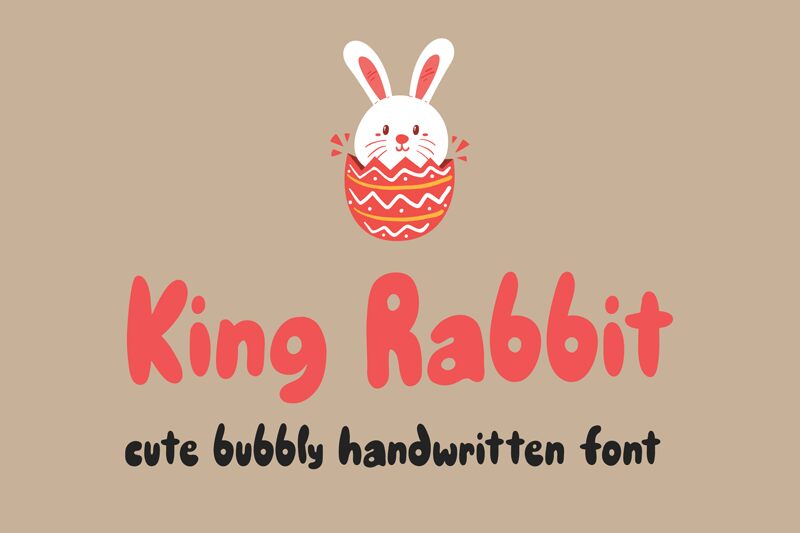
Ahwe Project brings you the King Rabbit – a bold, semi-condensed display typeface that is perfect for all your playful and whimsical projects. The cartoon-inspired style of the font injects a fun and lively vibe into any design, making it suitable for children’s books, posters, logos, and packaging designs. King Rabbit’s bold weight makes it stand out in headlines or titles while its semi-condensed width allows for efficient space utilization in smaller bodies of text. With its unique character set and energetic feel, King Rabbit is sure to give your designs a touch of delightful charm!
King Rabbit